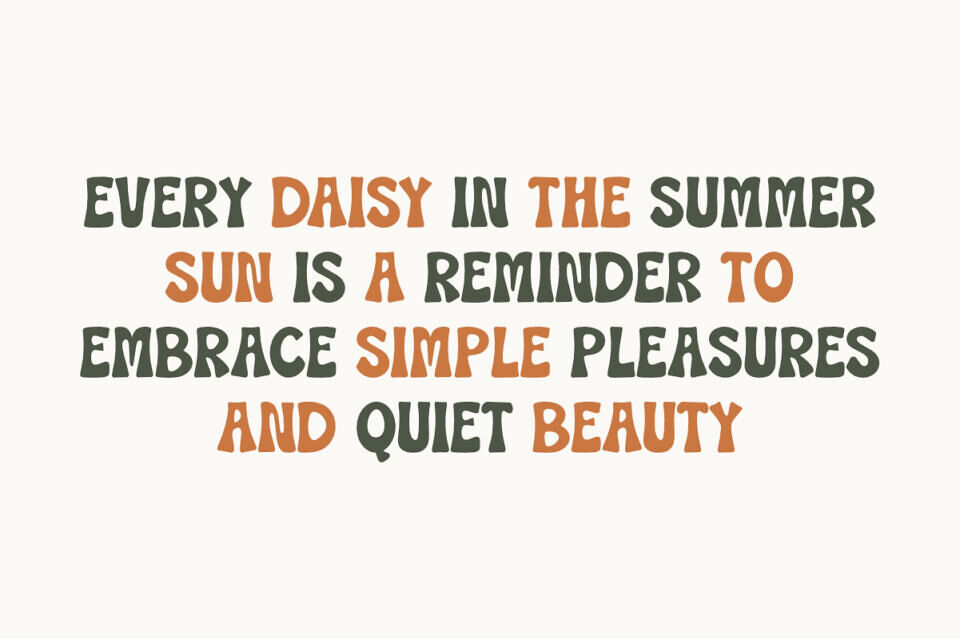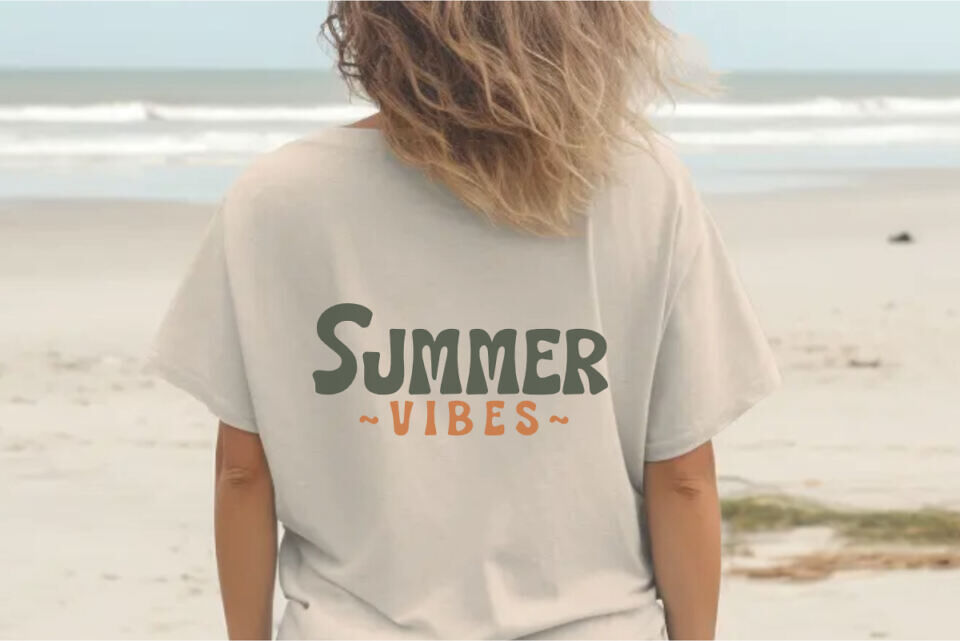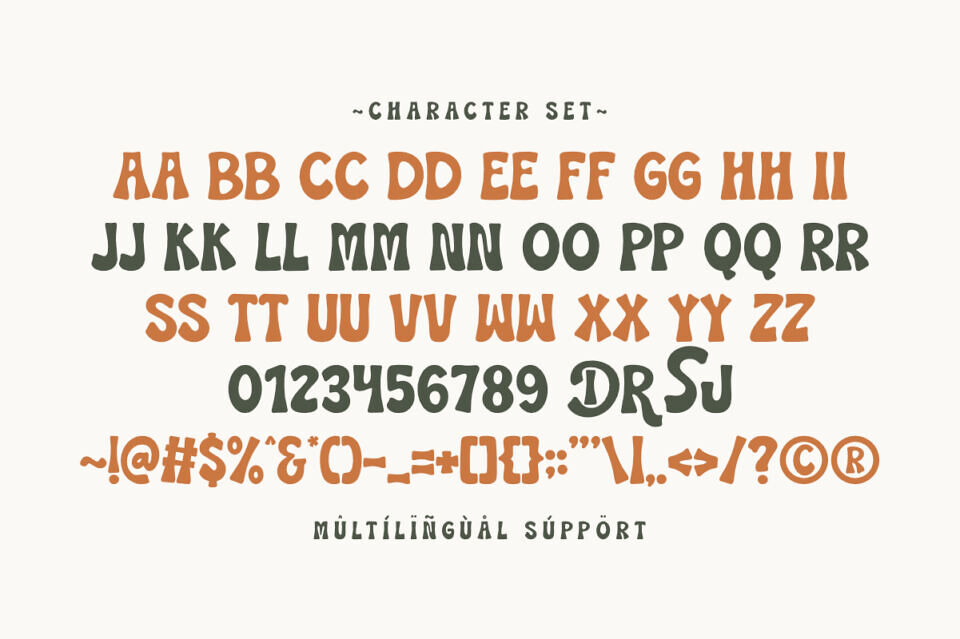
Summer Daisy is a retro groovy display font that is playful and full of character. This font is specifically designed for those of you who are involved in the world of crafting, digital design, and sublimation.